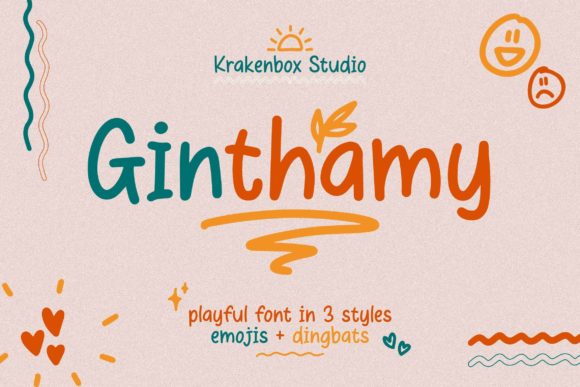
Ginthamy Font: The Ultimate Display Font for Creative Designs
Are you looking for a font that can add a special cool touch to your design projects? Look no further than the Ginthamy font! This cute and playful display font is perfect for a wide range of creative applications, from branding and logos to t-shirt printing and product design. In this article, we’ll take a closer look at the Ginthamy font, its features, and how you can use it to elevate your design game.
What is Ginthamy Font?
Ginthamy is a modern display font designed to make a statement. Its unique and playful style makes it perfect for creative projects that require a touch of personality. The font is characterized by its bold lines, rounded edges, and cute details that give it a distinctive look. Whether you’re designing a logo, a brochure, or a t-shirt, Ginthamy is sure to grab attention and leave a lasting impression.
Key Features of Ginthamy Font
- Cute and Playful Style: Ginthamy’s unique design makes it perfect for creative projects that require a touch of personality.
- Bold Lines and Rounded Edges: The font’s bold lines and rounded edges give it a distinctive look that’s both modern and playful.
- Multipurpose: Ginthamy is perfect for a wide range of design applications, from branding and logos to t-shirt printing and product design.
- Easily Readable: Despite its bold style, Ginthamy is easily readable, making it perfect for headlines and titles.
How to Use Ginthamy Font
Ginthamy is a versatile font that can be used in a variety of design projects. Here are some ideas to get you started:
- Branding and Logos: Use Ginthamy to create a unique and memorable logo for your brand.
- T-Shirt Printing: Ginthamy is perfect for designing custom t-shirts, hoodies, and other apparel.
- Product Design: Use Ginthamy to add a touch of personality to your product designs, from mugs to phone cases.
- Posters and Flyers: Ginthamy is perfect for designing eye-catching posters and flyers.
Benefits of Using Ginthamy Font
Using Ginthamy font offers several benefits, including:
- Unique and Memorable Designs: Ginthamy’s unique style ensures that your designs stand out from the crowd.
- Time-Saving: With Ginthamy, you can create professional-looking designs in no time.
- Versatility: Ginthamy can be used in a wide range of design applications.
- Easy to Read: Despite its bold style, Ginthamy is easily readable, making it perfect for headlines and titles.
Tips for Using Ginthamy Font Effectively
Here are some tips for using Ginthamy font effectively:
- Use it for Headlines and Titles: Ginthamy is perfect for headlines and titles, where its bold style can make a big impact.
- Pair it with Other Fonts: Ginthamy can be paired with other fonts to create a unique and interesting design.
- Experiment with Colors: Ginthamy looks great in a variety of colors, so don’t be afraid to experiment.
- Keep it Simple: While Ginthamy is a bold font, it’s best to keep your design simple and clean to ensure maximum impact.
In conclusion, Ginthamy font is a unique and versatile display font that’s perfect for creative designers. Its cute and playful style makes it ideal for a wide range of design applications, from branding and logos to t-shirt printing and product design. With its bold lines, rounded edges, and easily readable style, Ginthamy is sure to grab attention and leave a lasting impression. So why not give Ginthamy a try and see how it can elevate your design game?
- What is Ginthamy font?: Ginthamy is a modern display font designed to make a statement.
- What is Ginthamy font used for?: Ginthamy is perfect for a wide range of design applications, from branding and logos to t-shirt printing and product design.